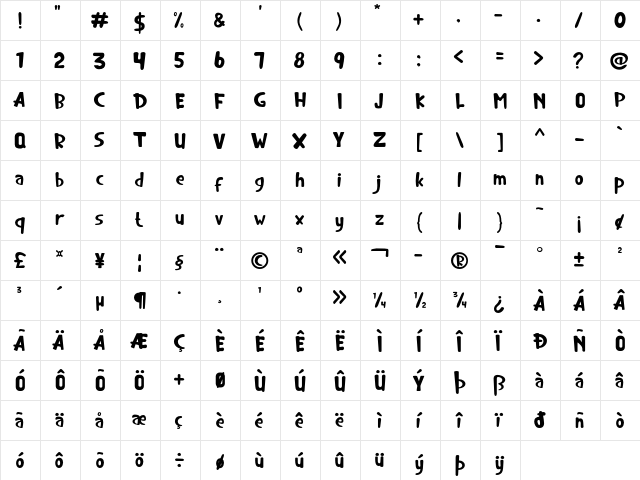
Chocolate Valentine Regular
Design Context for Chocolate Valentine Typeface
Chocolate Valentine is a composed and adaptable typeface that performs quietly and consistently across a wide range of design contexts.
Pro Tip: Use Chocolate Valentine in both headline and body roles to test its range before committing to a single application.